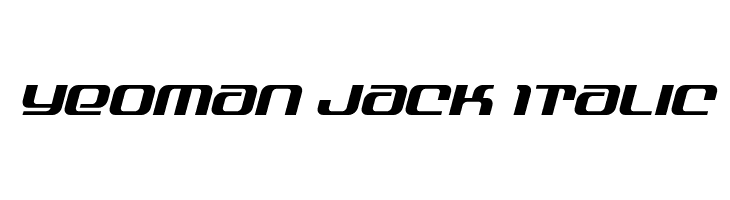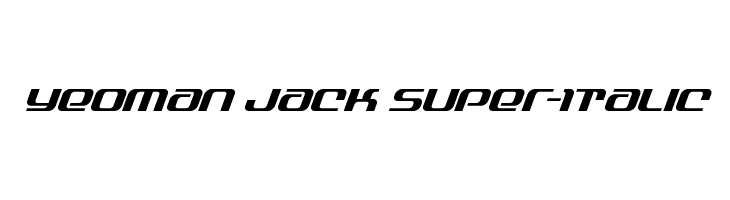
A modern, italic font with a sleek, futuristic design.
A futuristic, geometric font with bold, angular letterforms.
A bold, futuristic font with geometric, segmented letterforms.
A futuristic, italic font with a stencil-like design, perfect for modern and tech-themed projects.
A futuristic, bold, and italicized font with sharp angles and a sleek design.
A bold, slanted font with a futuristic and sporty design.
A bold, futuristic font with angular, slanted letterforms and a modern aesthetic.
A bold, semi-italic font with a futuristic and dynamic style.
A bold, futuristic font with a semi-italic slant and geometric design.
A bold, italicized font with a futuristic and dynamic design.